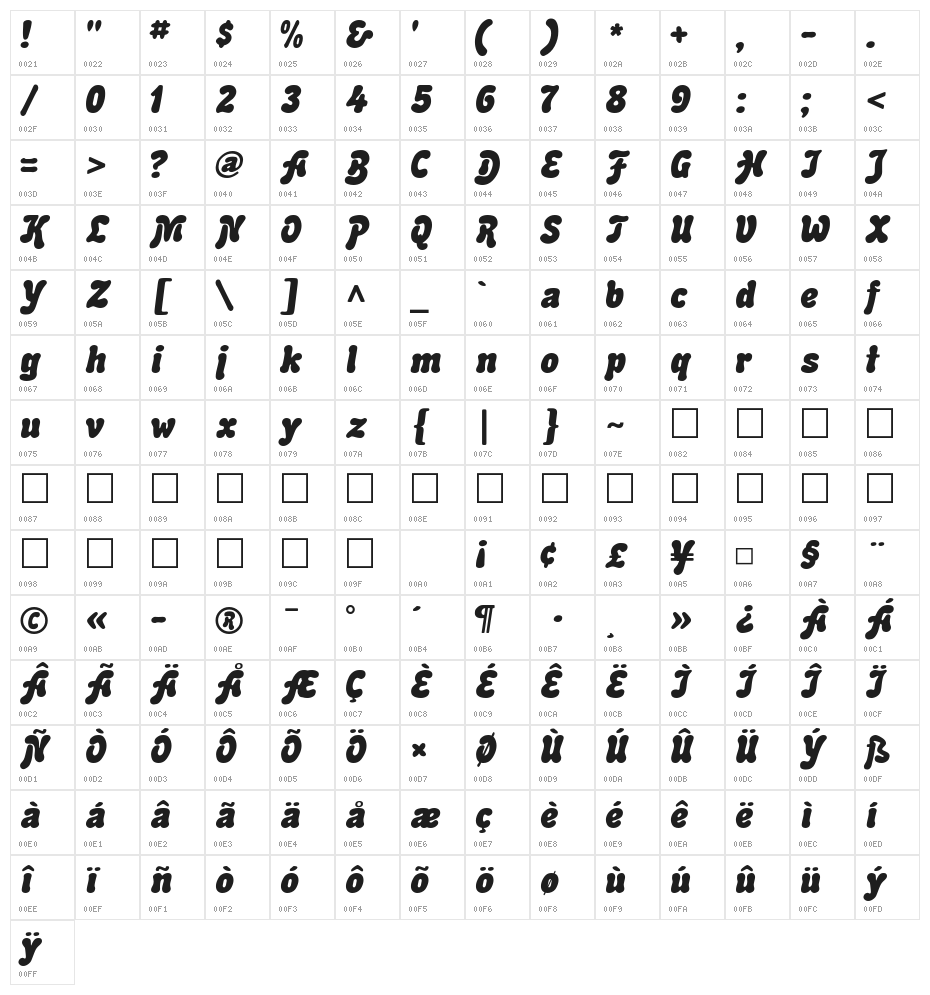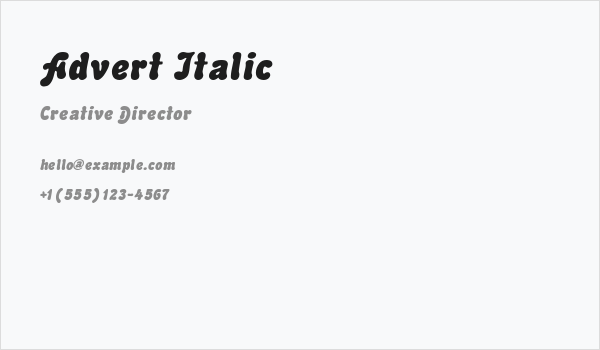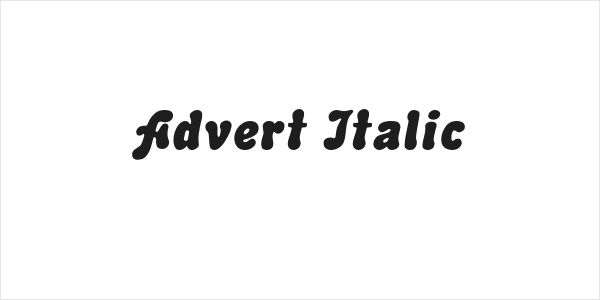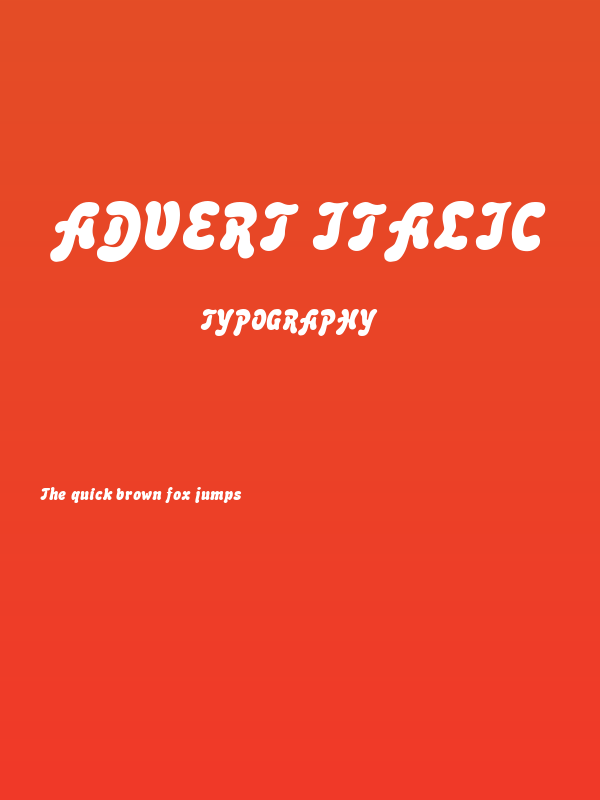
Advert Italic Font
Advert Italic Description
This font features a bold and playful style with a strong emphasis on rounded, flowing forms. The characters are thick and robust, giving a sense of weight and presence. The italic slant adds a dynamic and energetic feel, making it suitable for attention-grabbing designs. The uppercase and lowercase letters maintain a consistent style, with smooth curves and rounded edges. Numbers and special characters follow the same bold and rounded aesthetic, ensuring uniformity across all elements. The font's overall appearance is both modern and slightly retro, reminiscent of vintage advertising styles.
Overall StyleVintage, Playful
Proposed ProjectsIdeal for retro-themed posters, playful branding, eye-catching headlines, and creative advertising campaigns.